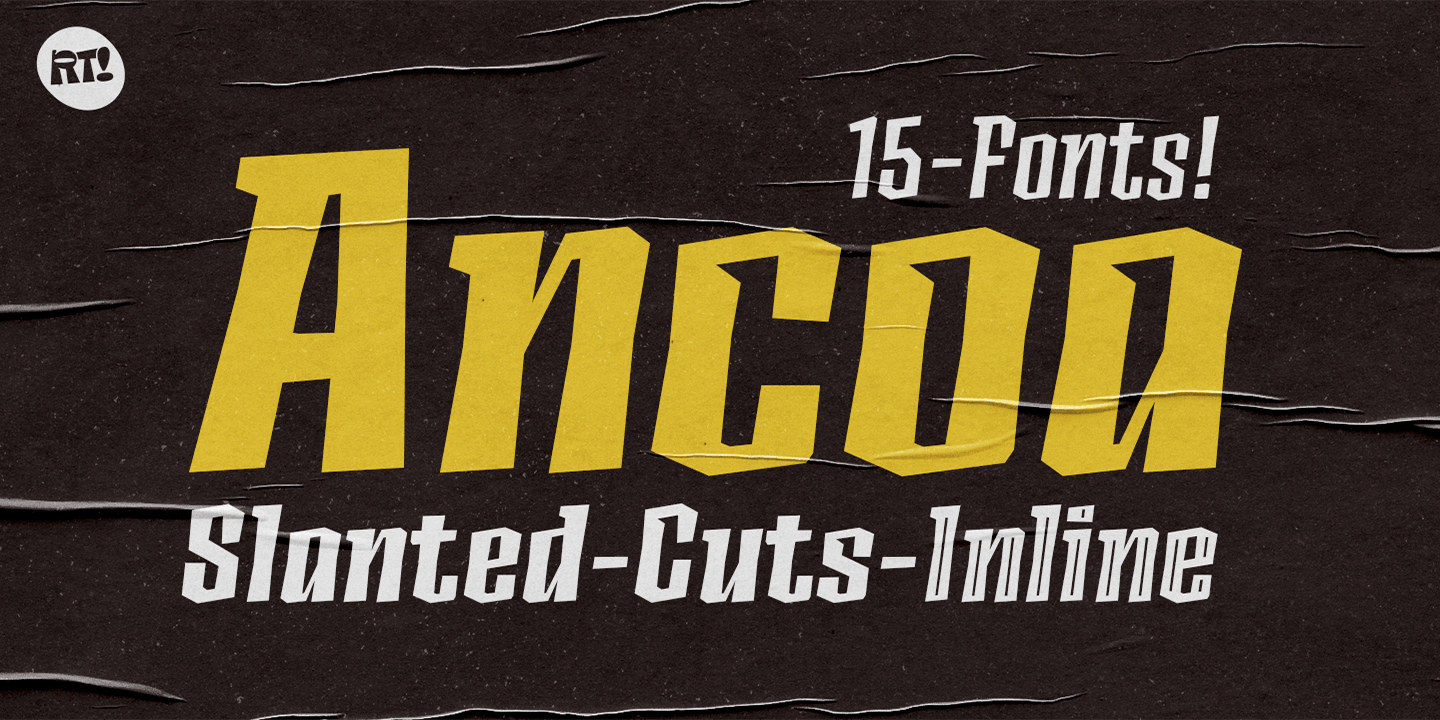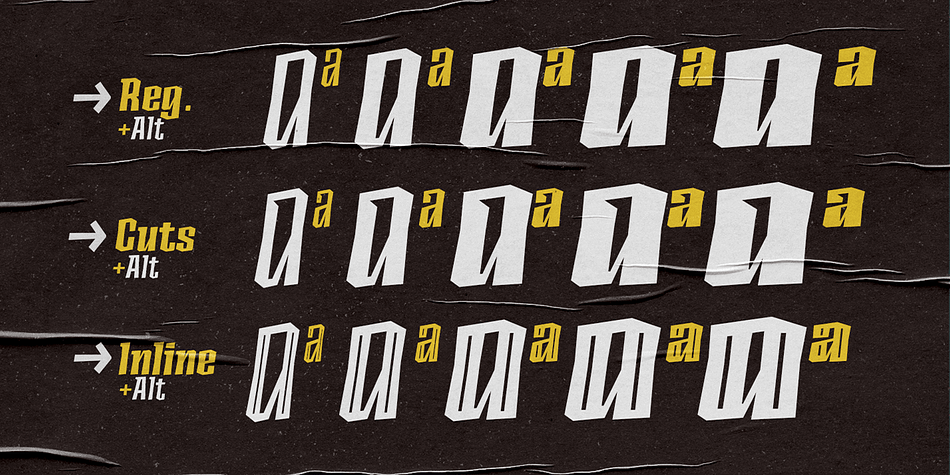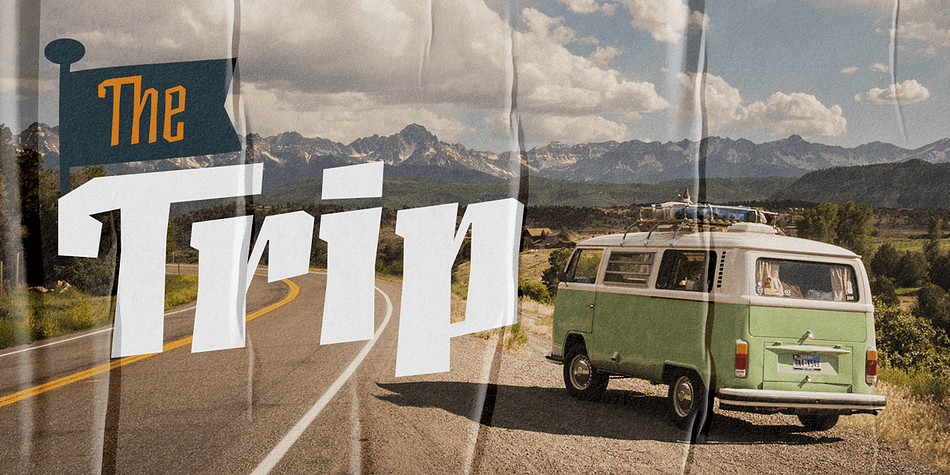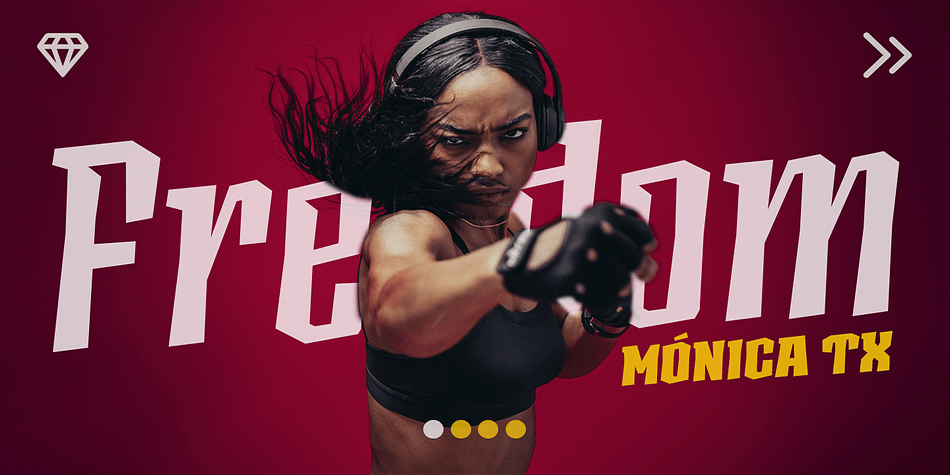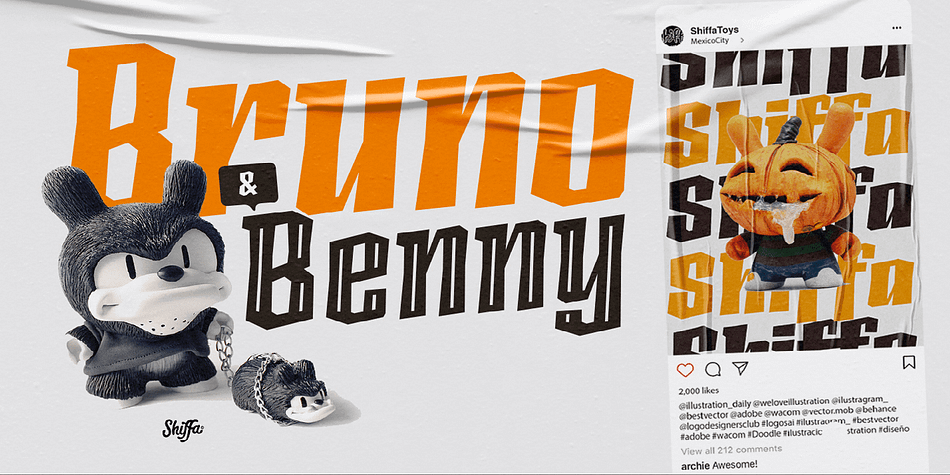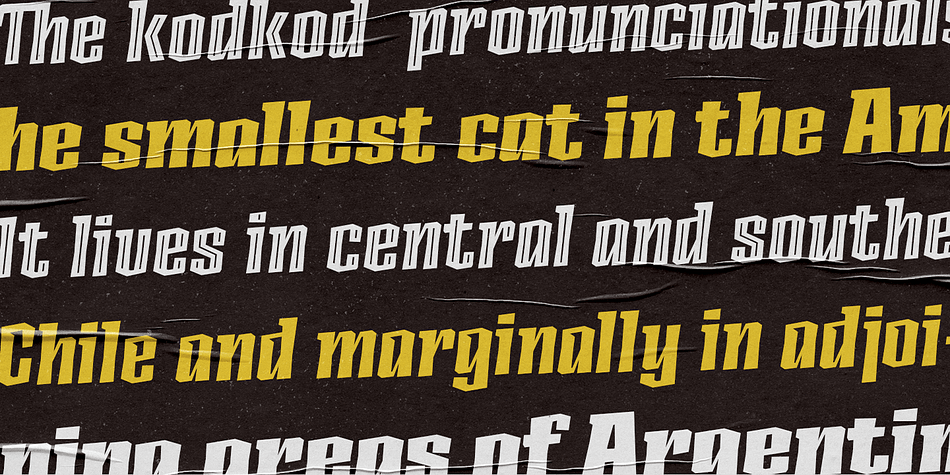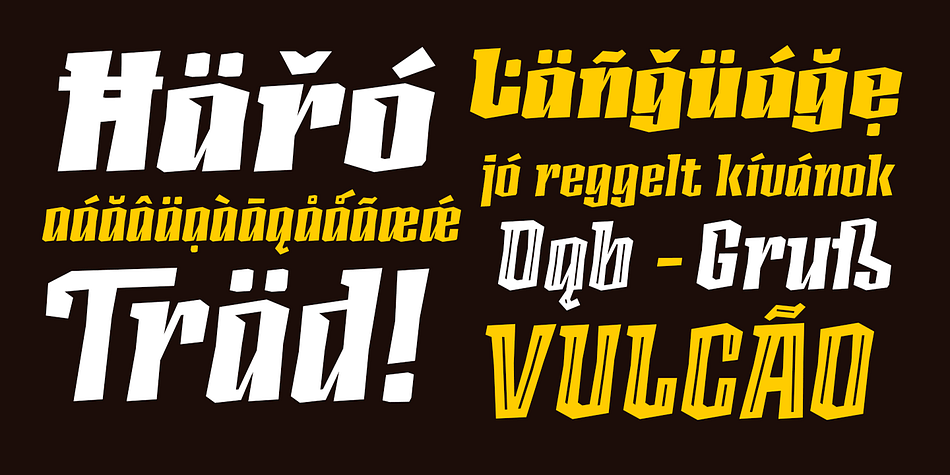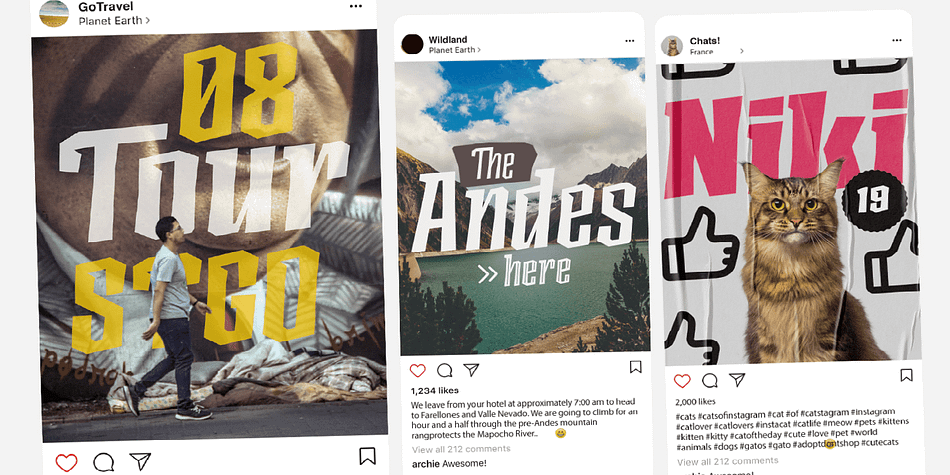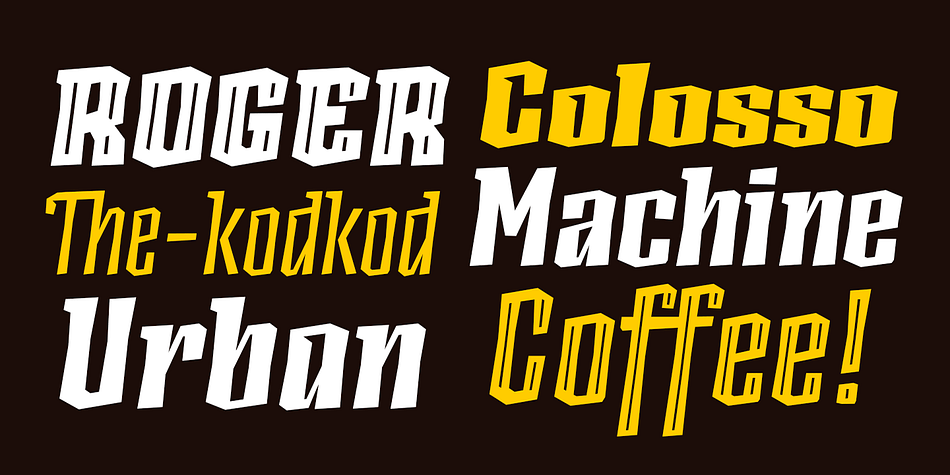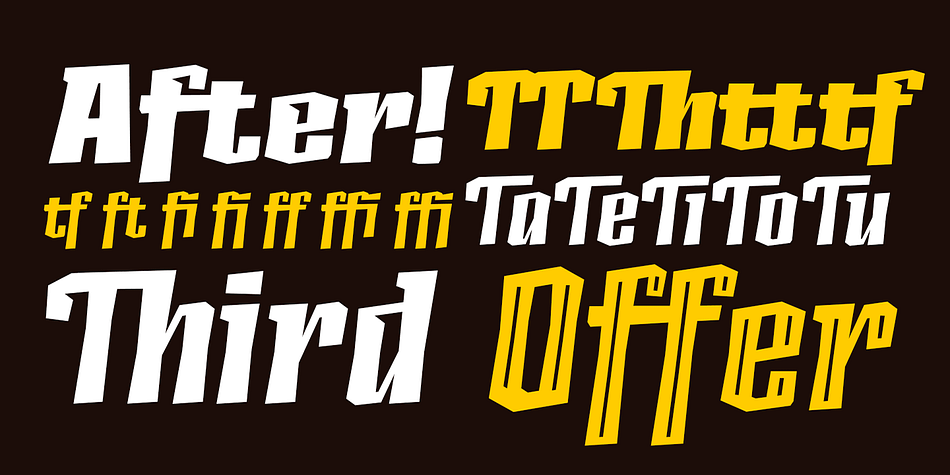
Ancoa Slanted
Designed by Andrey Kudryavtsev, Rodrigo Salas and Franco Hernández, Ancoa Slanted is a display font family. This typeface has fifteen styles and was published by Rodrigo Typo.
Ancoa Slanted, a typeface that contains more than 15 variants such as Slanted, Cuts and Inline as well as different ligatures and contains alternatives, a rough and dynamic typeface to use in different designs